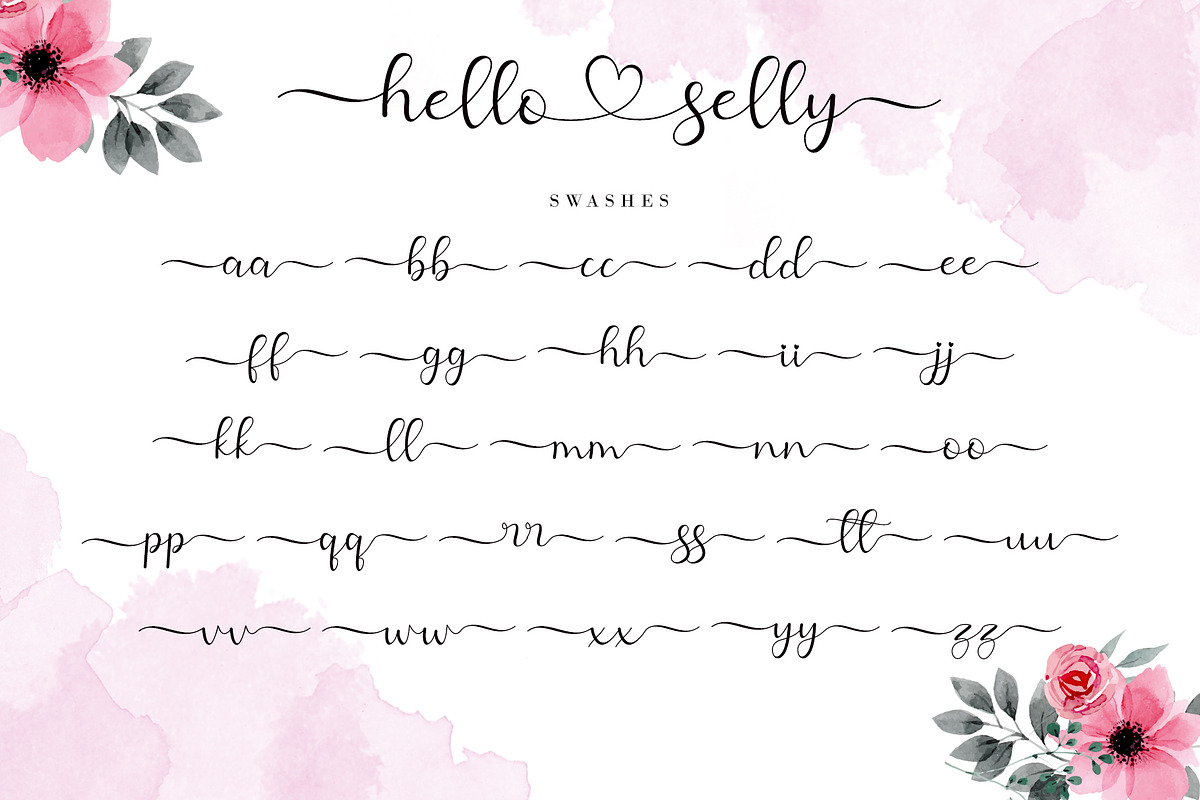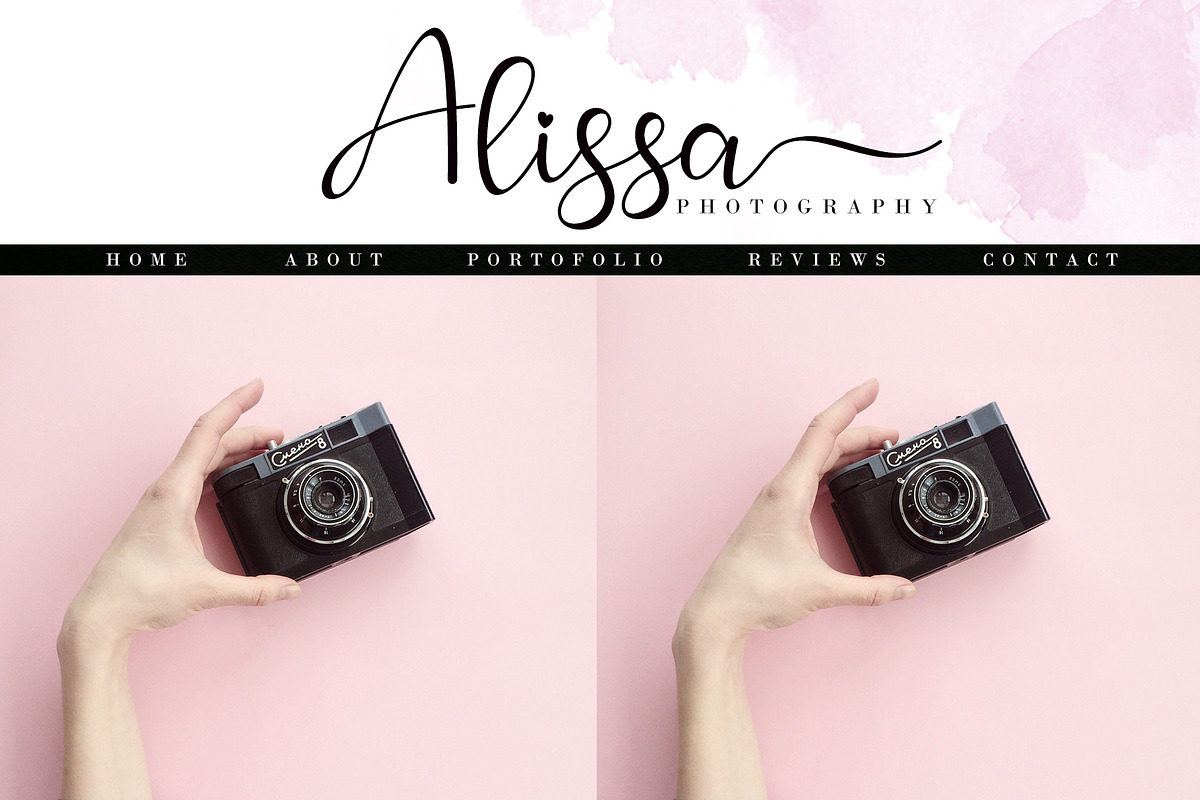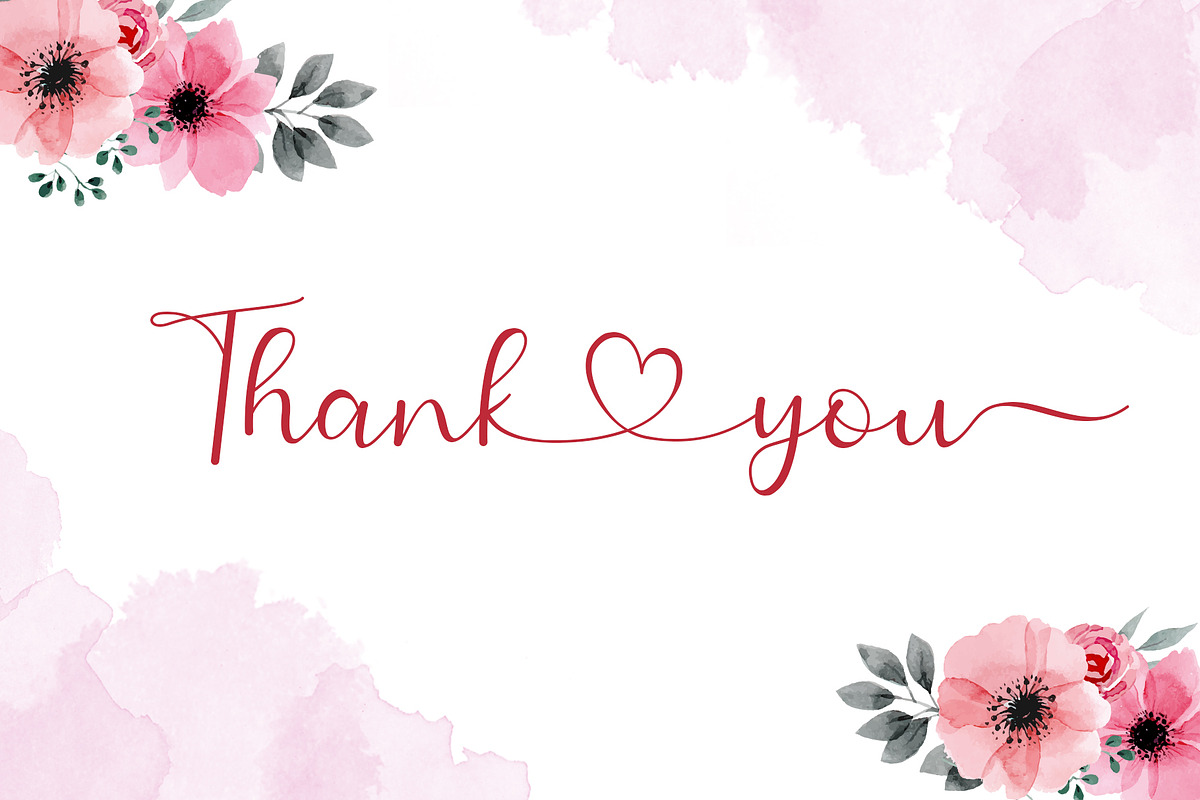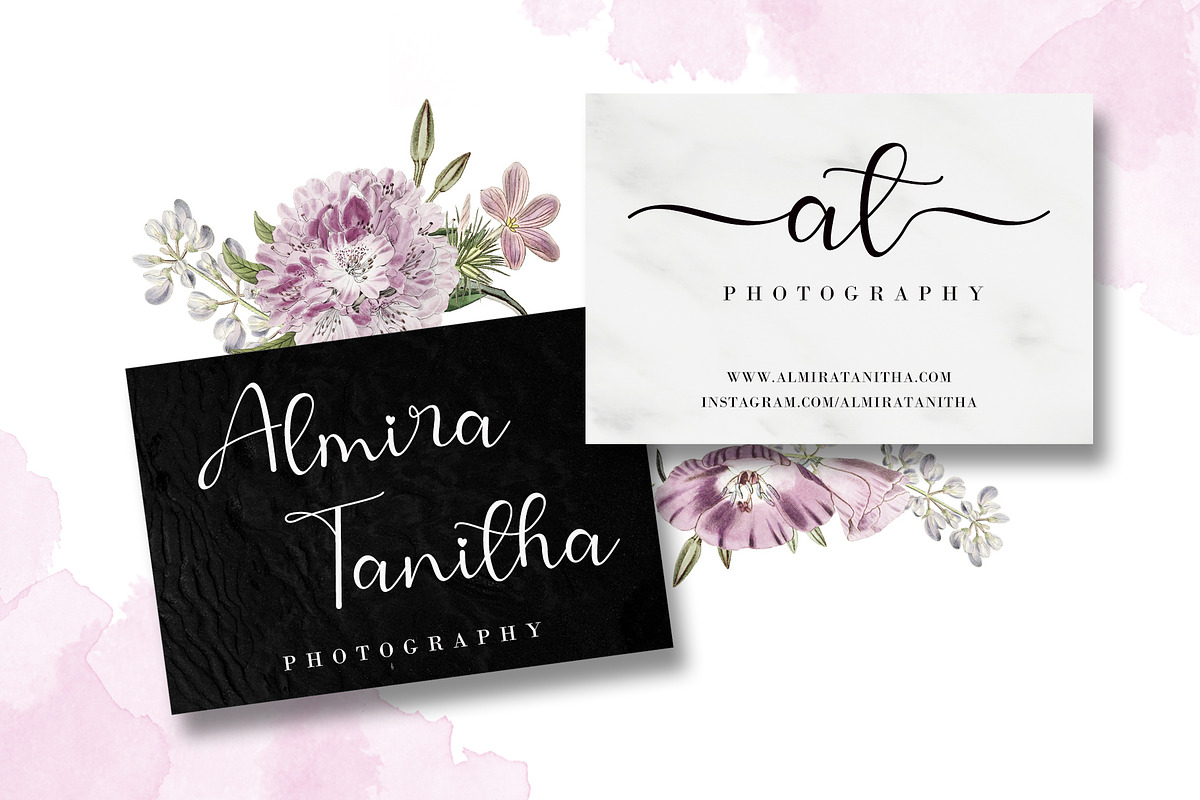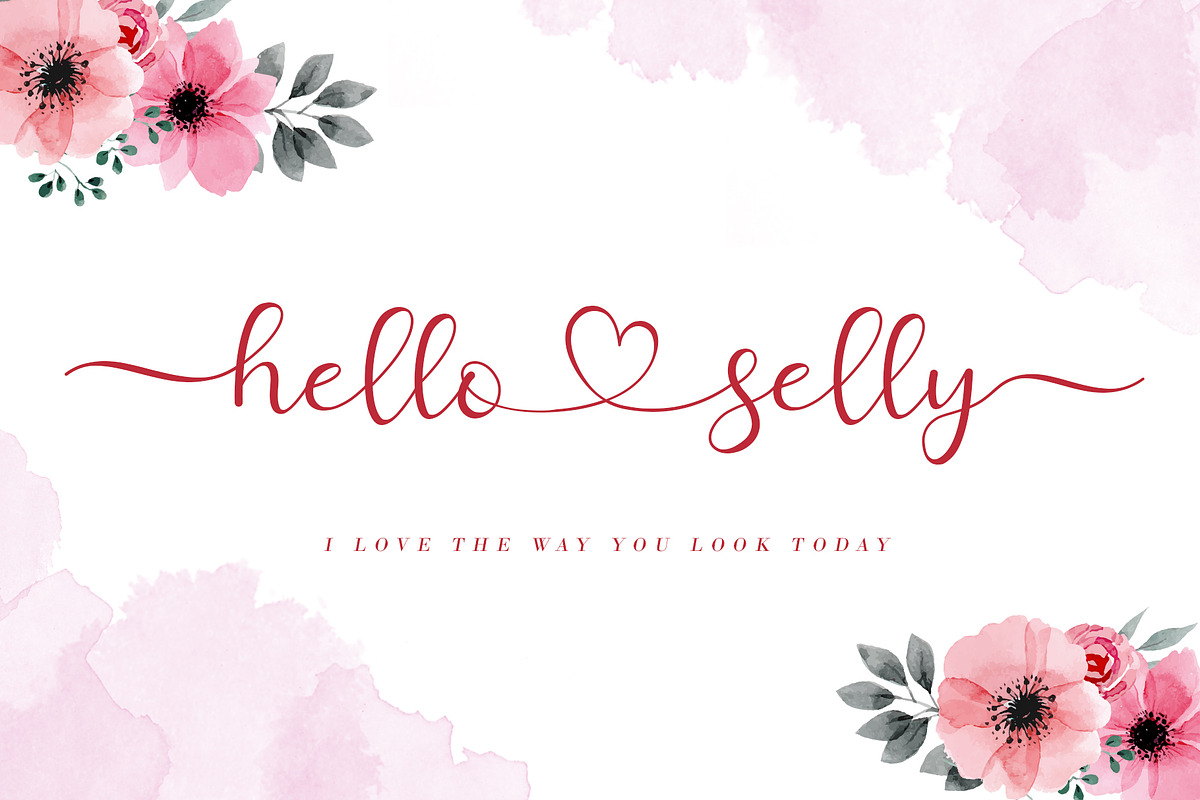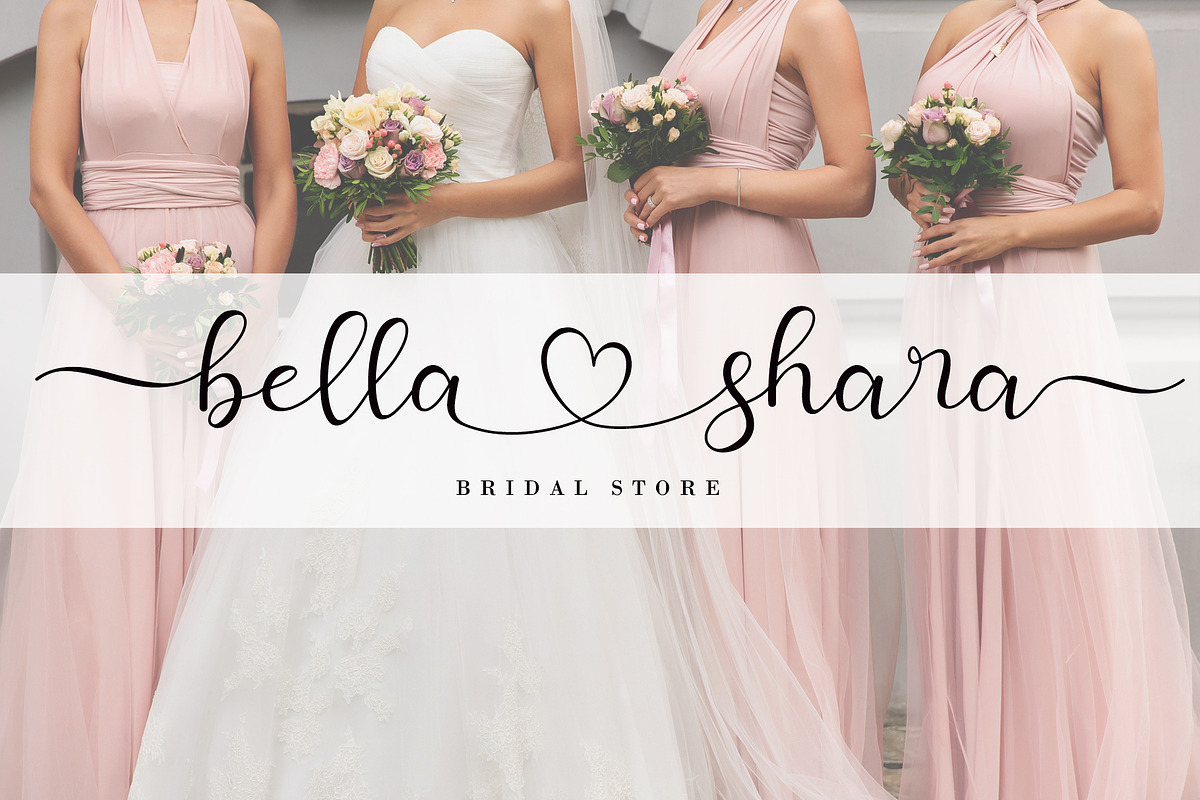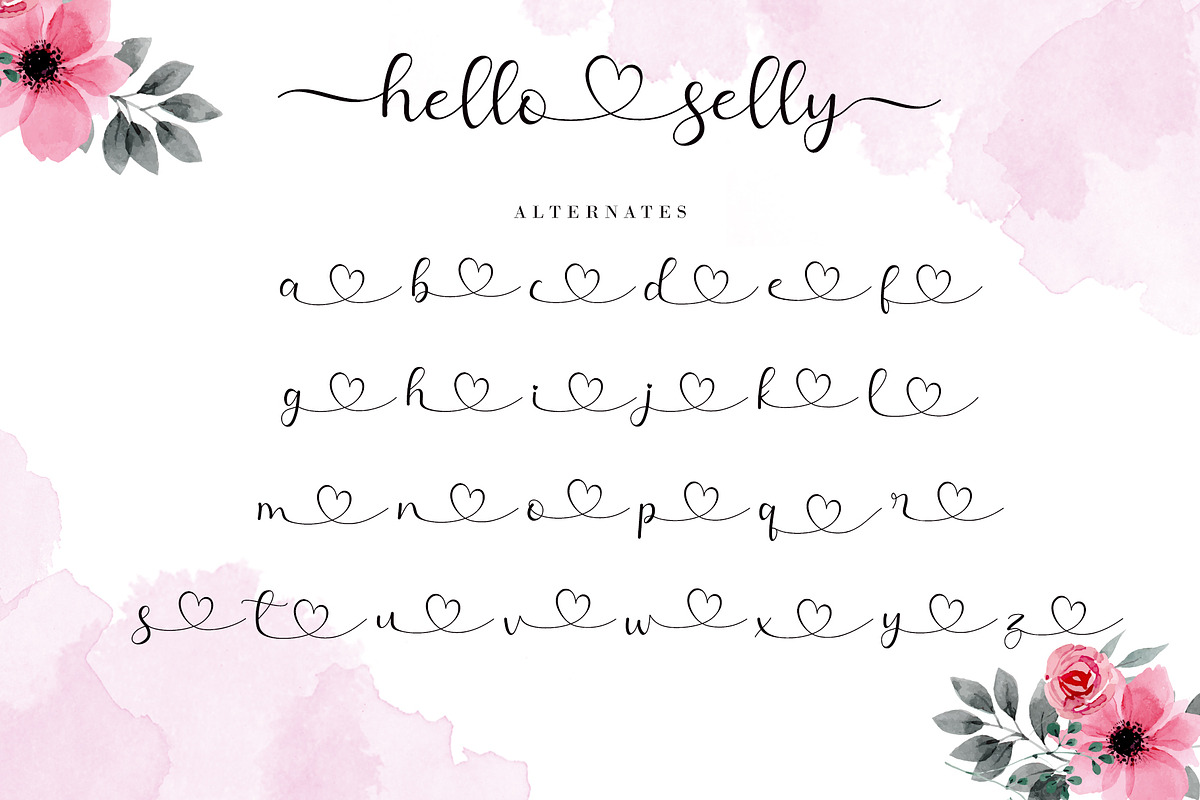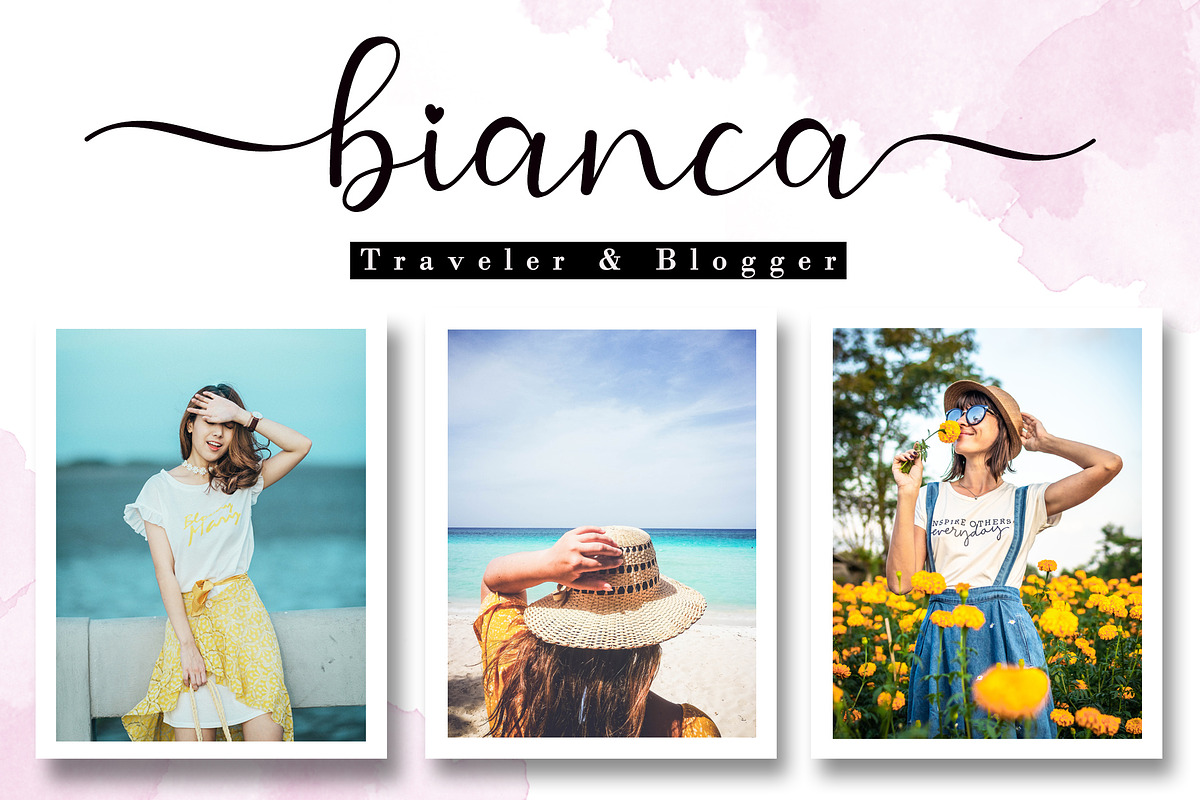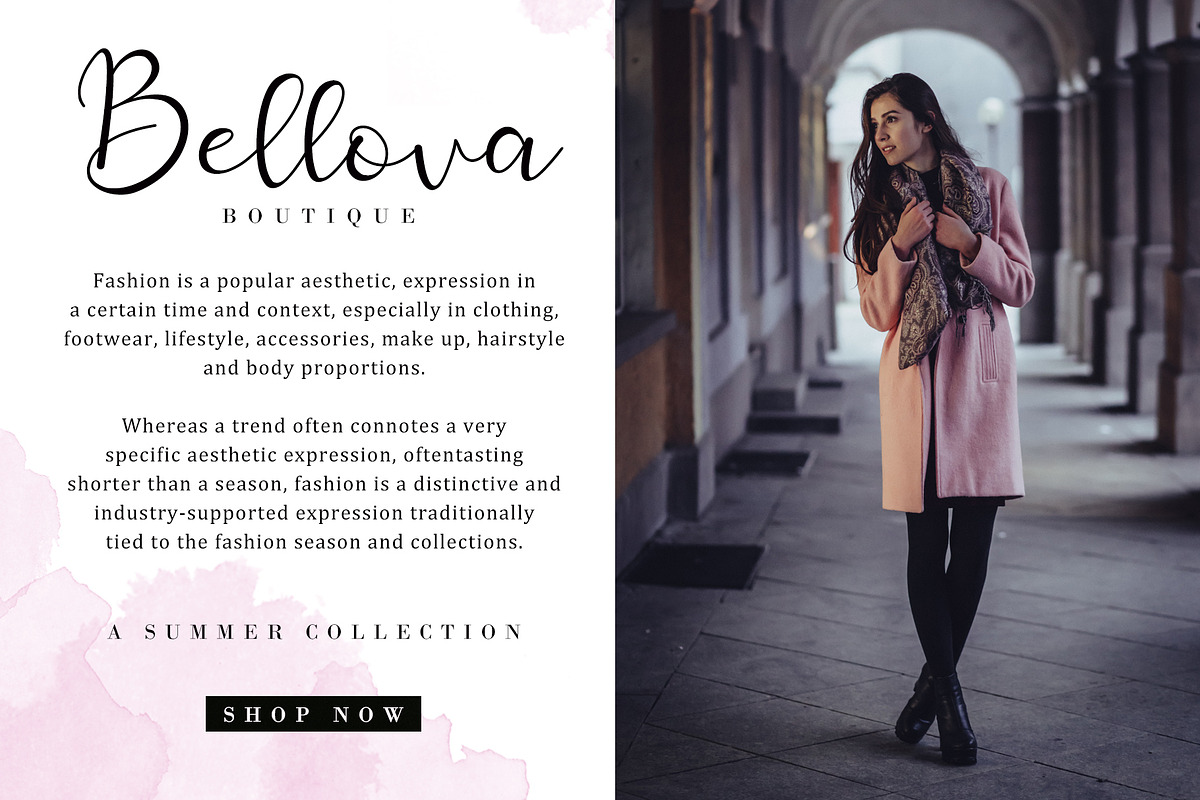
Hello Selly
Hello Selly is an elegant and flowing handwritten font. It is PUA encoded which means you can access all of the glyphs and swashes with ease! It features a varying baseline, smooth lines, gorgeous glyphs and stunning alternates. It maintains its classy calligraphic influences while feeling contemporary and fresh. Fall in love with Hello Selly and bring your projects to the highest levels!
Hello Selly Features :
- Support multilingual; ä ö ü Ä Ö Ü ß ¿ ¡
- (a-z) titling, (a-z) swashes, ligatures